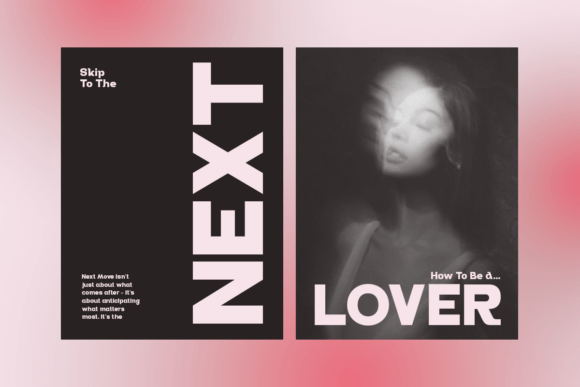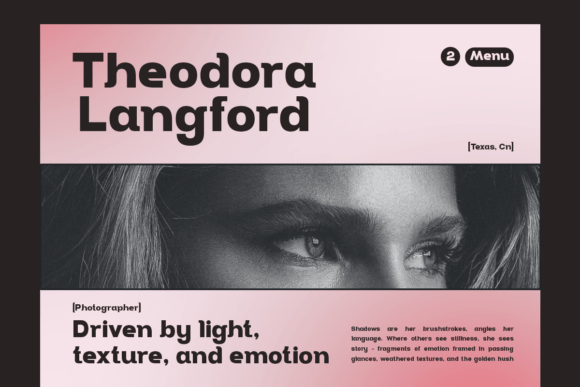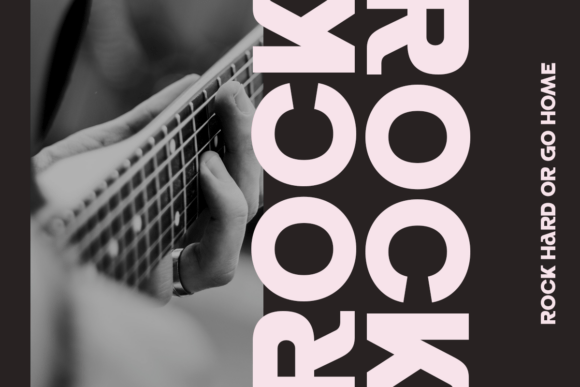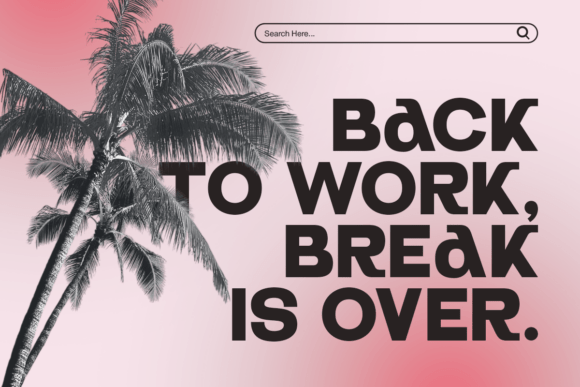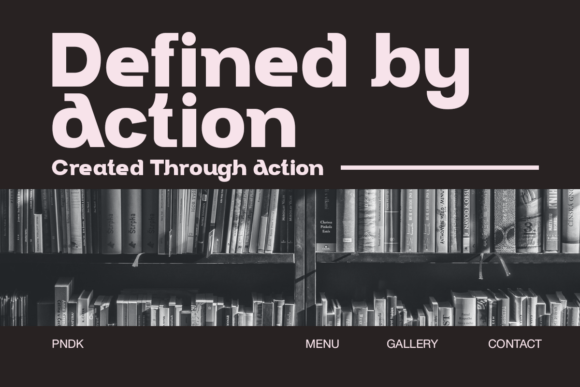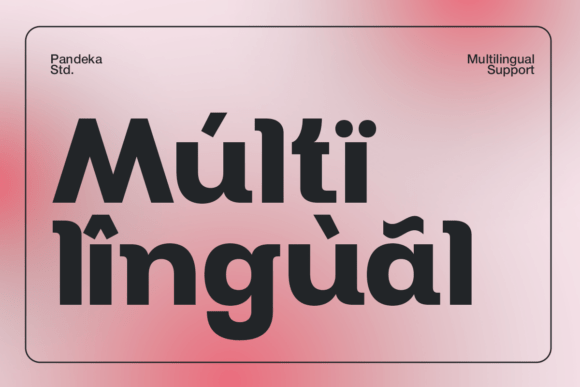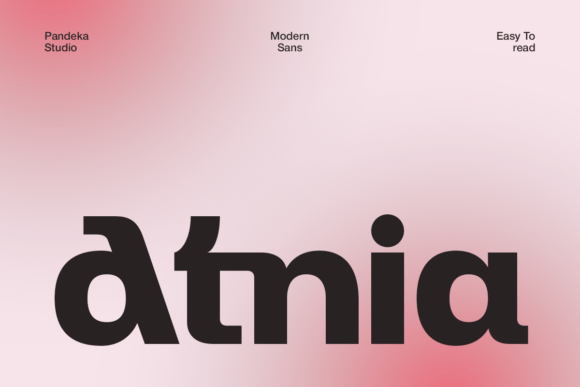
Atnia Font: Elevate Your Designs with Modern Geometric Elegance
In the realm of typography, the right font can make all the difference in elevating your design from ordinary to extraordinary. Atnia, a clean and modern geometric sans-serif font, is here to revolutionize your creative projects with its simplicity, precision, and timeless sophistication. Designed with the needs of contemporary designers in mind, Atnia offers a perfect blend of form and function, making it an ideal choice for a wide range of applications.
The Essence of Atnia: Simplicity and Precision
Atnia’s design philosophy revolves around simplicity and precision. Its balanced letterforms and smooth curves are meticulously crafted to convey a sense of clarity, professionalism, and modernity. This geometric sans-serif font is characterized by its clean lines, uncluttered aesthetic, and geometric balance, making it a versatile tool for designers seeking to create impactful and elegant compositions.
Perfect for Contemporary Branding and Design
Atnia’s minimal aesthetic and modern sophistication make it a perfect fit for contemporary branding, editorial layouts, web design, and digital interfaces. Its geometric structure and balanced letterforms ensure that your message is communicated with clarity and precision, whether you’re designing a logo, poster, headline, or creative project. With Atnia, you can create visually stunning compositions that exude professionalism and sophistication.
Key Features of Atnia Font
• Clean and Modern Design: Atnia’s geometric sans-serif design ensures a clean and modern look that is perfect for contemporary designs.
• Balanced Letterforms: The font’s balanced letterforms and smooth curves create a harmonious and elegant composition.
• Geometric Balance: Atnia’s geometric balance ensures that your designs are visually appealing and easy to read.
• Timeless Structure: The font’s timeless structure makes it suitable for a wide range of applications, from logos to creative projects.
• Versatile and Adaptable: Atnia can be used for various design projects, including branding, editorial layouts, web design, and digital interfaces.
Applications of Atnia Font
Atnia’s versatility and adaptability make it suitable for a wide range of design applications. Here are some of the ways you can use Atnia to elevate your designs:
• Logos and Branding: Atnia’s modern and geometric design makes it an ideal choice for logos and branding projects that require a sleek and sophisticated look.
• Posters and Headlines: The font’s clean and elegant design ensures that your posters and headlines stand out and grab attention.
• Editorial Layouts: Atnia’s readability and geometric balance make it perfect for editorial layouts, including magazines, newspapers, and books.
• Web Design and Digital Interfaces: The font’s clean and modern design ensures a seamless user experience for web design and digital interfaces.
• Creative Projects: Atnia’s versatility and adaptability make it suitable for various creative projects, including art, design, and photography.
In conclusion, Atnia font is a powerful tool for designers seeking to create modern, elegant, and sophisticated compositions. Its clean and geometric design, balanced letterforms, and timeless structure make it a perfect choice for a wide range of design applications. Whether you’re a designer, craftsperson, or creative enthusiast, Atnia is an excellent addition to your typographic arsenal. With Atnia, you can elevate your designs and create visually stunning compositions that communicate clarity, professionalism, and modern sophistication.
Discover the full potential of Atnia font and take your designs to the next level. Explore its features, applications, and benefits, and experience the elegance and sophistication that Atnia brings to the world of typography.